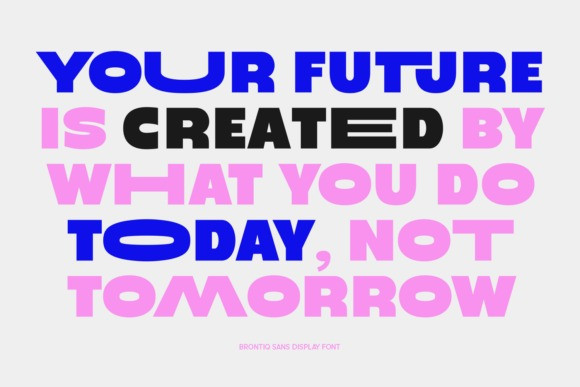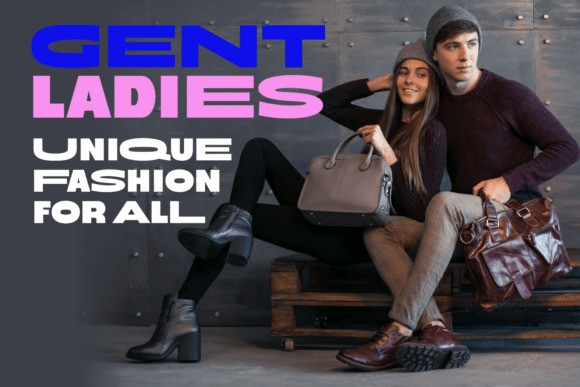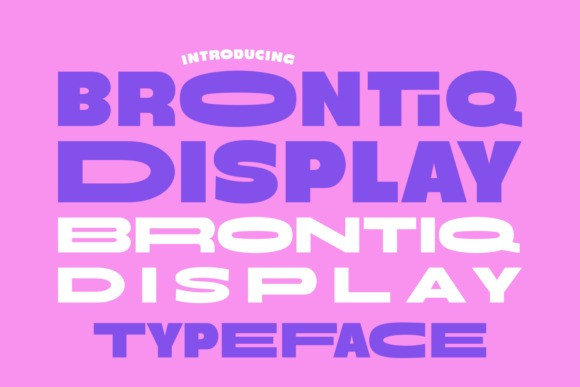
Brontiq Font
Brontiq Font is a striking and modern display typeface designed to capture attention and make a bold statement. Its distinctive rounded shapes and playful curves give it a unique personality that sets it apart from more traditional fonts. The characters possess a harmonious balance of strength and softness, making them versatile for a wide range of creative projects. Brontiq is an excellent choice for headlines, logos, posters, and social media graphics where a memorable and engaging visual identity is key. This font’s strong visual presence makes it particularly beneficial for designers and marketers aiming to create youthful, energetic, and contemporary brands that resonate with a modern audience.
This versatile font includes a full suite of features to support your design needs. The characters include a comprehensive uppercase and lowercase alphabet, numerals, and an extensive collection of punctuation and symbols. Furthermore, it offers multilingual support, ensuring its adaptability for various content and language applications. These robust features make Brontiq a powerful tool for branding, advertising, editorial design, and more, providing the flexibility to bring your creative vision to life across different media and platforms.